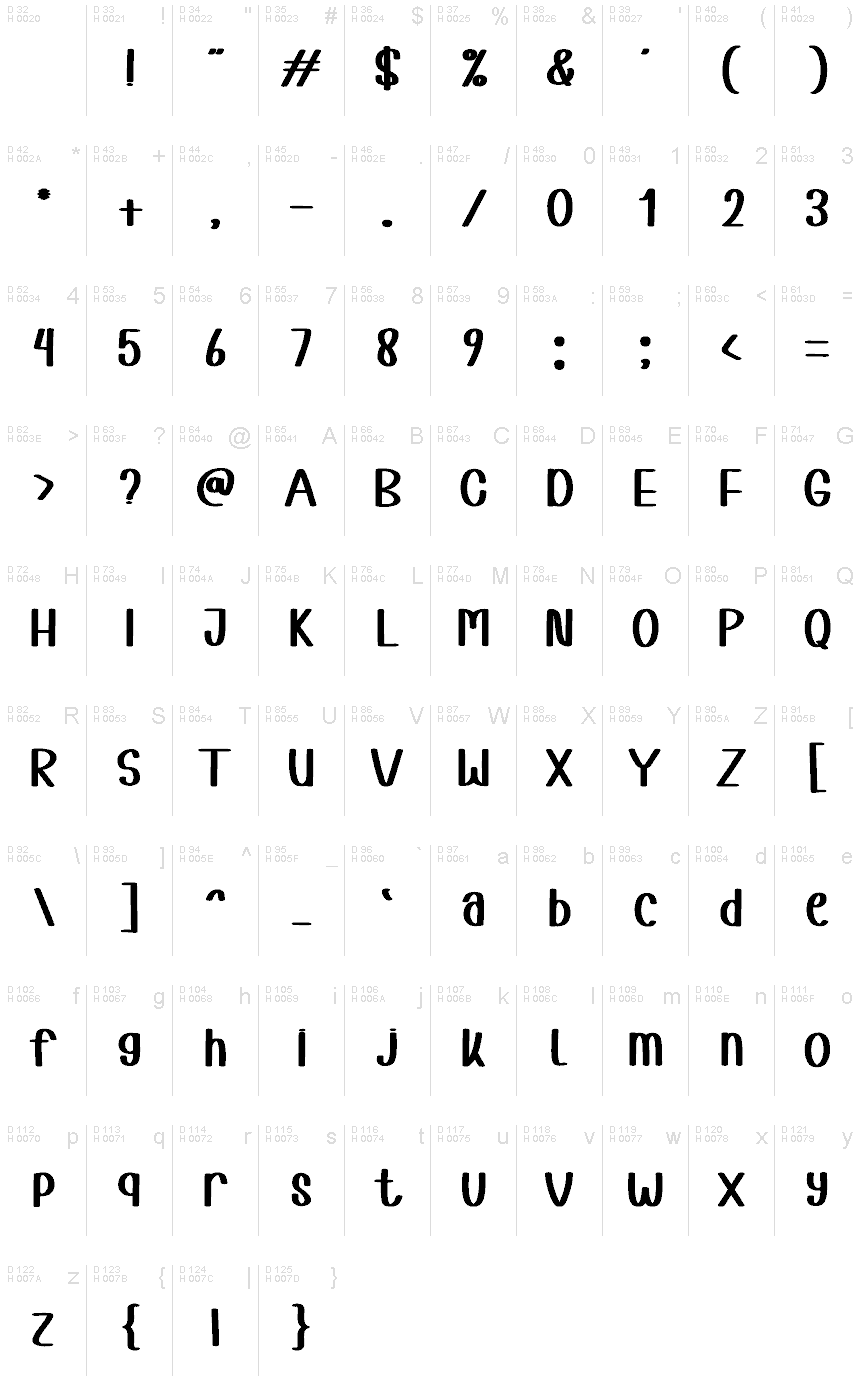
Demand
Demand font is a free handwritten font by Andi Moz inspired by the flow of handwriting but also adopting several geometric influences. Sleek and modern, it has a condensed overall look with clean lines that allow for many contemporary applications.
This versatile design can easily fit branding designs, business cards, title texts, posters, novels or magazine covers, books interior text and chapters headings, event invitations, packaging designs and so much more. Its small details will certainly leave an impression on your audience regardless of where you use it.